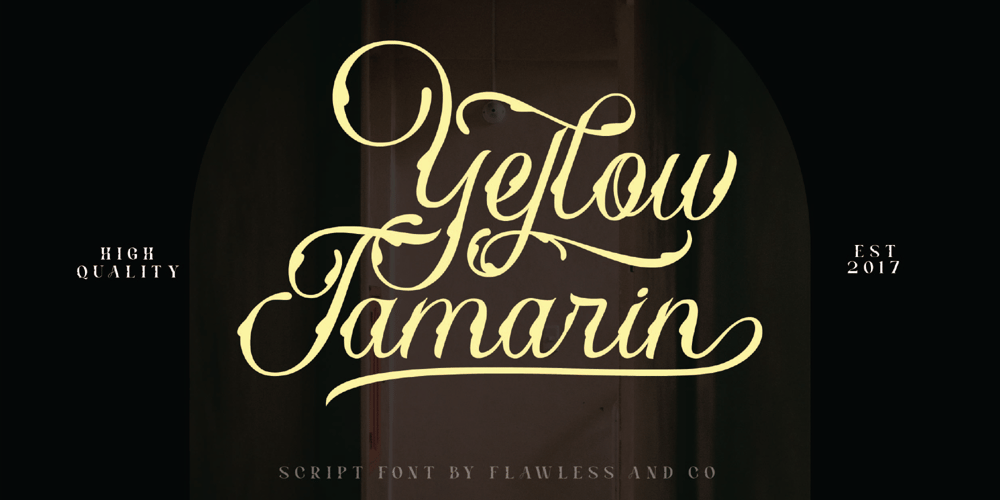
Yellow Tamarin Font Family was designed by Achmad Yani and published by Flawlessandco. Yellow Tamarin contains 1 styles and family package options. Yellow Tamarin is a blackletter font, also a yellow font with decorative elements and a metal or tattoo-inspired look. This makes it a highly unique and versatile font, with many potential uses in design.There’s some connected letters and some alternates that suitable for any graphic designs such as branding materials, t-shirt, print, business cards, logo, poster, t-shirt, photography, quotes .etcThis font support for some multilingual. Also contains uppercase A-Z and lowercase a-z, alternate character, numbers 0-9, and some punctuation.If you need help, just write me! Thanks so much for checking out my shop!